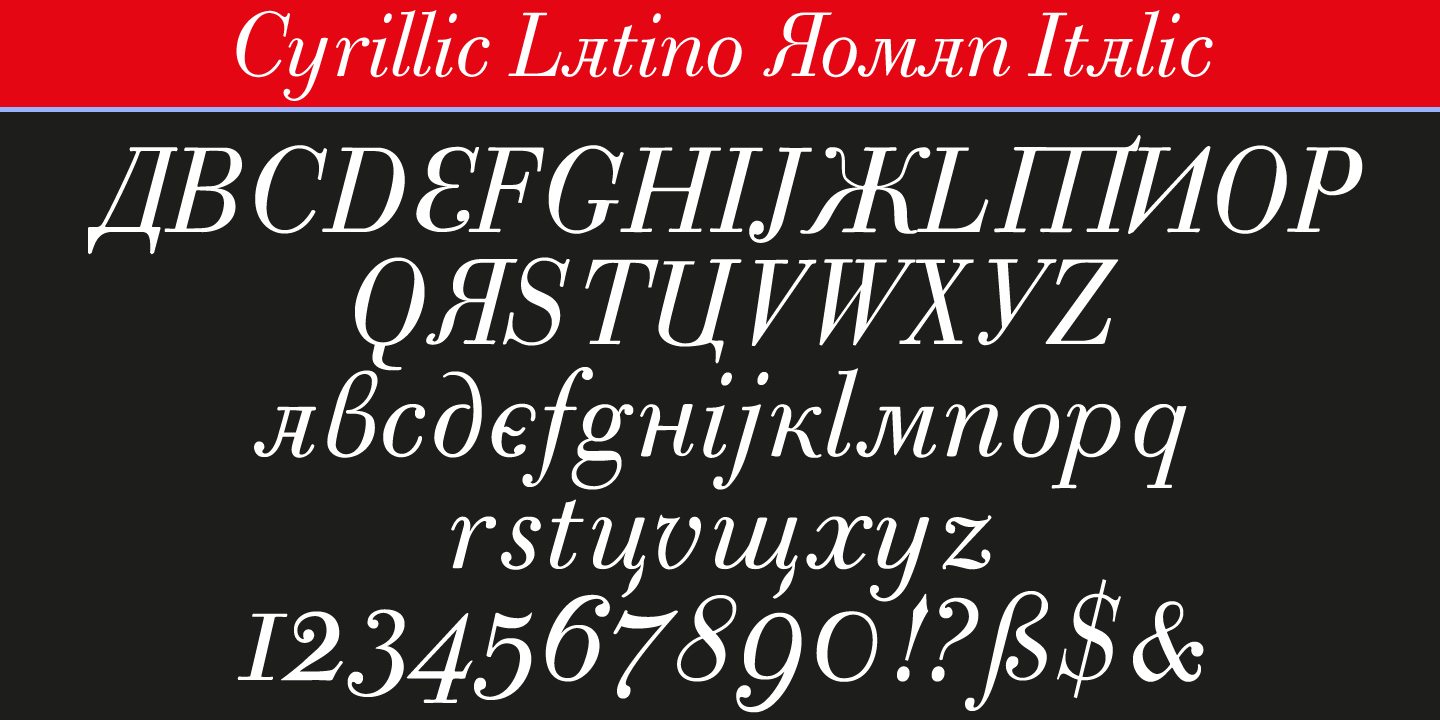
Cyrillic Latino
Font Family by Wiescher Design
Cyrillic Latino is a combination of the cyrillic and latin version of my Bodoni-Classic-Text typefaces.
The typeface comes in very handy if you want text to look Russian but can be read by everyone. Since it is a combination of two of my typefaces I only charge the price for one typeface.